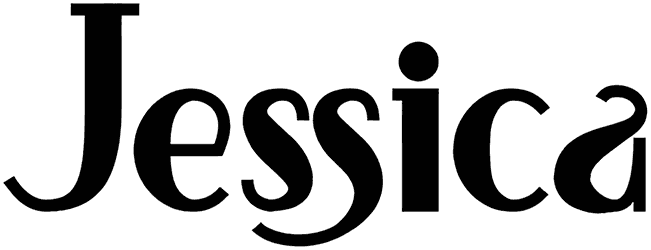
Jessica Font
If you want to welcome your viewers with a friendly and warm design, do not reject this offer. This retro font, which is known as Jessica, has a humble and unique outward. It is so close to the full coverage of characters and can be a nice illustration for many creative designs, such as posters, fashion ads, logos, and the like.